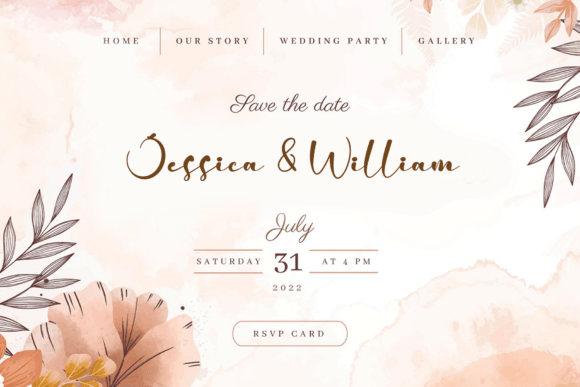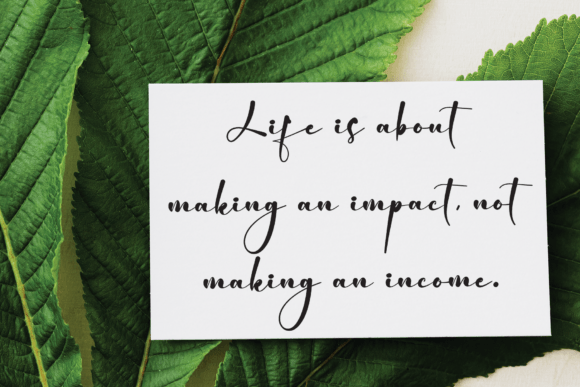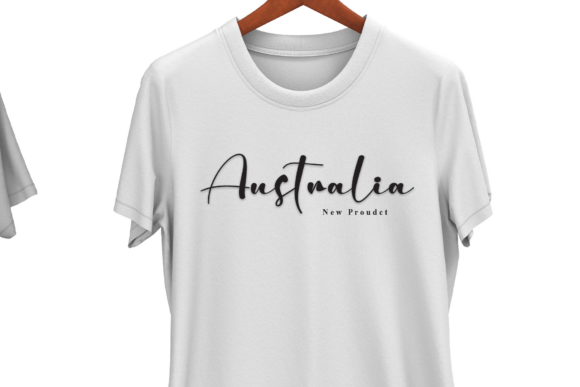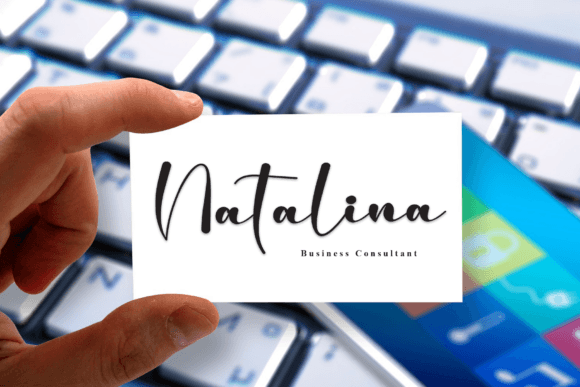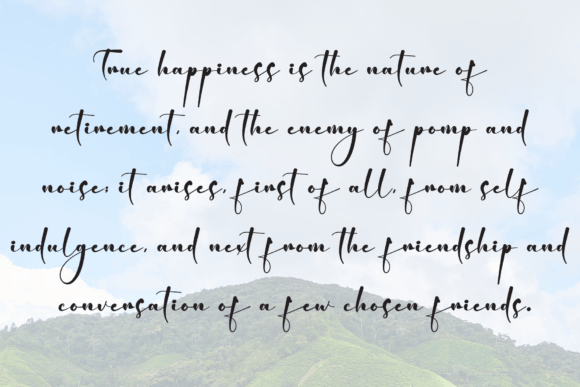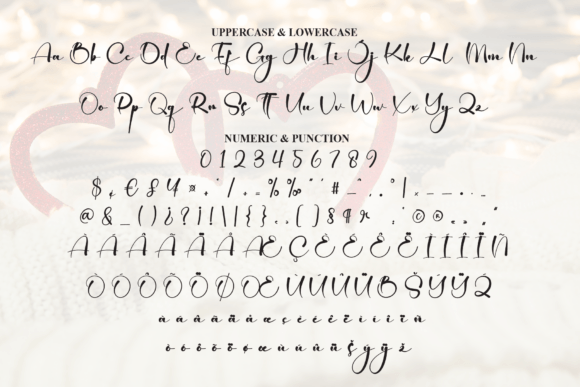
Introduction to Lovely Christmas Font Font
Fonts play a crucial role in design, and the Lovely Christmas Font font is a typeface that brings both character and versatility to any project. Whether you’re working on a branding project, a website, or a print design, the Lovely Christmas Font font offers a unique style that can elevate your work.
Lovely Christmas is a stylish and flowing script font that looks like handwriting.
It has smooth, curvy letters, making it great for invitations, logos, and creative designs Perfect for adding a personal and elegant touch.
Key Features of Lovely Christmas Font Font
Why Choose Lovely Christmas Font Font?
The Lovely Christmas Font font is more than just a typeface – it’s a design tool that helps you communicate your message with style and clarity. Its unique character set and versatile design make it suitable for a wide range of applications, from elegant invitations to bold headlines.
With its carefully crafted letterforms and balanced proportions, the Lovely Christmas Font font ensures readability and visual appeal across all mediums.
What makes Lovely Christmas Font font special?
The Lovely Christmas Font font stands out with its unique design, exceptional readability, and versatility across various design applications.